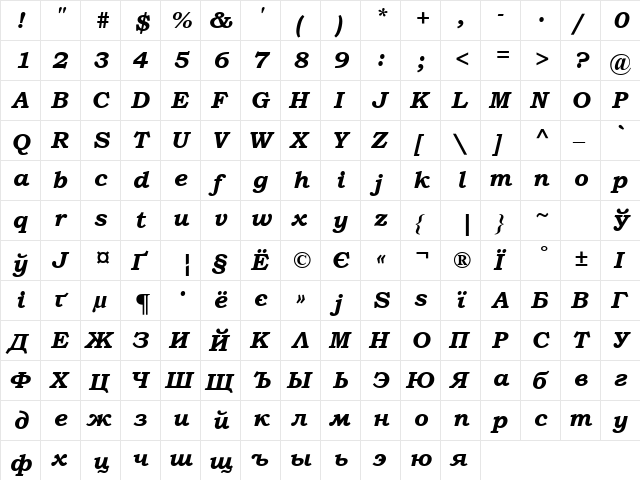
Bookman Old Style Cyr Bold Italic Font Preview
Design Context for Bookman Old Style Cyr Typeface
Bookman Old Style Cyr offers clean, dependable letterforms without strong stylistic allegiance, making it a practical choice for designers who need flexibility. The slanted form adds forward momentum and visual energy. Its bold stroke weight gives it real presence on the page.
Pro Tip: Try Bookman Old Style Cyr for annotation and caption copy alongside an upright companion — the contrast in angle creates a dynamic but ordered typographic system.